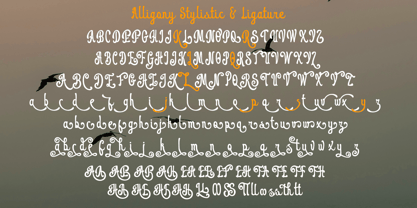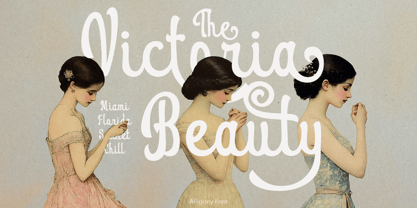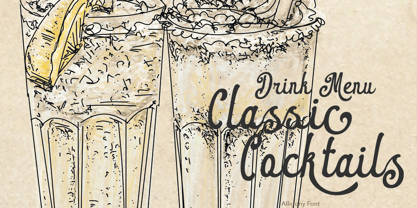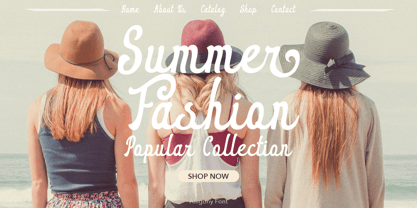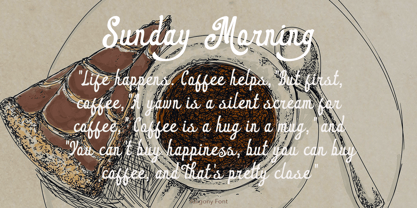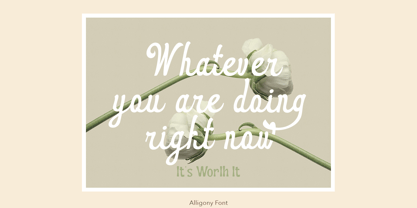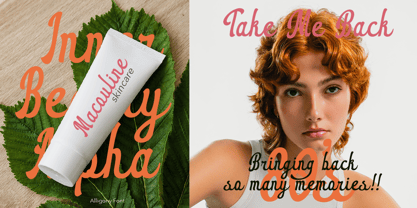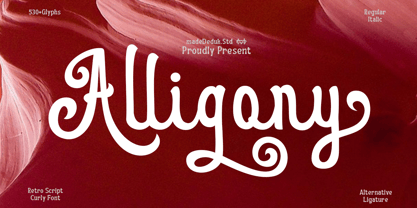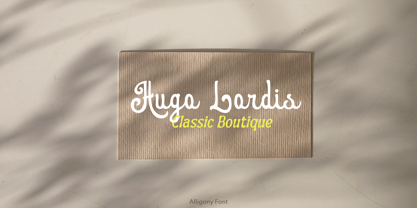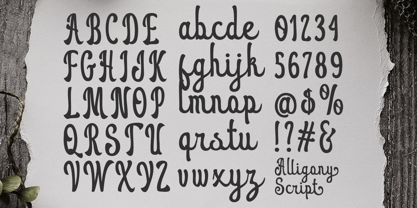
Alligony
by madeDeduk
The Alligony Font Family was designed by madededuk and published by madeDeduk. Alligony contains 2 styles and family package options. More about this family
Alligony is a retro script font that stands out with its elegant and sophisticated design. Ideal for titles and key elements, this font captivates with its unique and attractive style. Featuring a curly aesthetic, it offers numerous alternates and ligatures, making it versatile for various applications. Perfect for poster designs, book covers, merchandise, fashion branding, advertising, magazines, album covers, wedding invitations, and more, this font adds a touch of charm and creativity to any project.